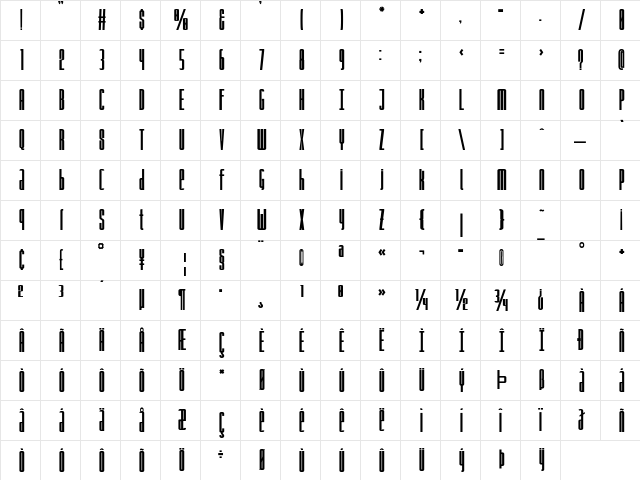
Sale Maker Regular
Design Context for Sale Maker Typeface
Sale Maker offers clean, dependable letterforms without strong stylistic allegiance, making it a practical choice for designers who need flexibility.
Pro Tip: Use Sale Maker in both headline and body roles to test its range before committing to a single application.